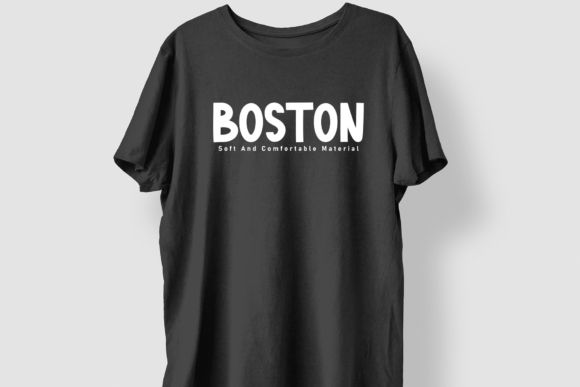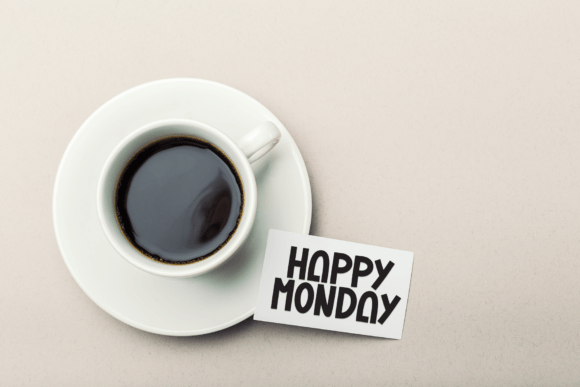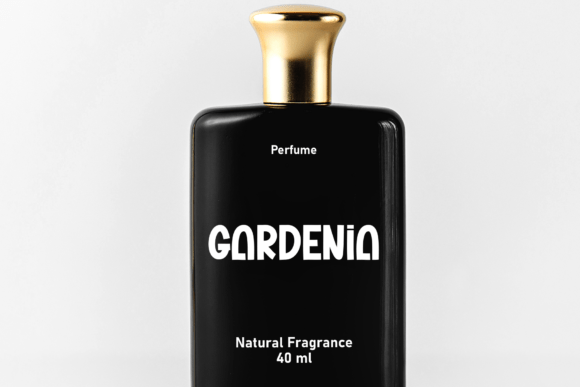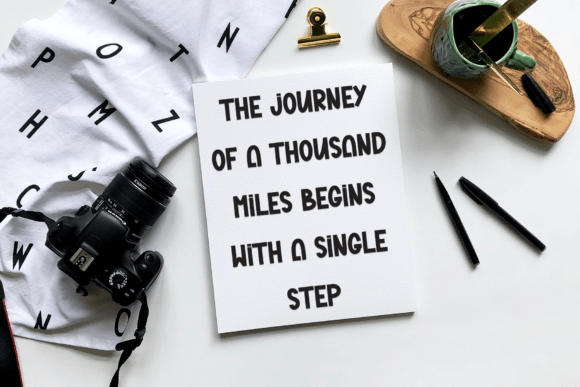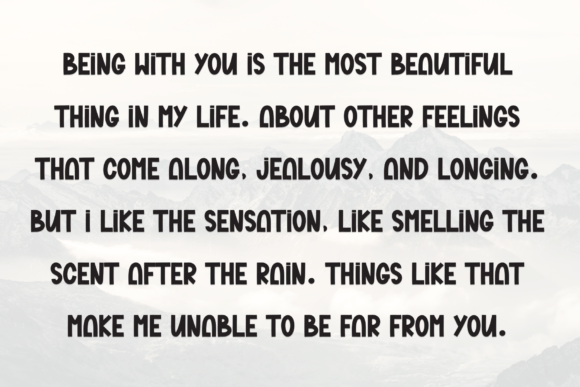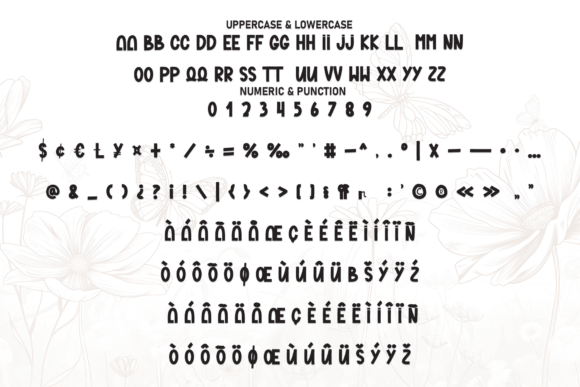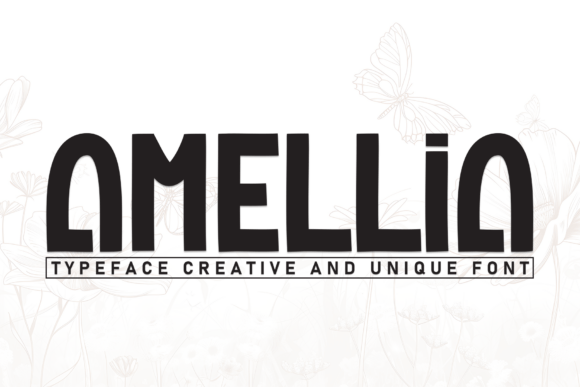
Discover the Charm of Amellia Font: The Perfect Blend of Clarity and Relaxed Elegance
In the world of typography, fonts play a crucial role in conveying the tone and personality of a brand or design. For designers and crafters looking for a font that strikes the perfect balance between modern sophistication and laid-back charm, Amellia Font is an excellent choice. This neat and casual display font is designed to bring clarity and approachability to your projects, making it ideal for a wide range of applications.
The Characteristics of Amellia Font
Amellia Font boasts clean lines and friendly letterforms that make it perfect for headlines, posters, packaging, and branding. Its balanced structure and playful energy bring a unique personality to any project without overwhelming the message. The font’s modern yet laid-back vibe makes it an excellent choice for designers who want to create a lasting impression without appearing too formal or intimidating.
What Makes Amellia Font Stand Out?
- Clarity and Readability: Amellia Font is designed to be clear and readable, making it perfect for headlines and titles that need to grab attention without sacrificing legibility.
- Relaxed and Approachable: The font’s casual and laid-back vibe makes it ideal for designs that aim to feel friendly and approachable.
- Balanced Structure: Amellia Font’s balanced structure ensures that it looks great in a variety of contexts, from digital displays to print materials.
- Playful Energy: The font’s playful energy brings a unique personality to any project, making it perfect for designs that want to stand out from the crowd.
Amellia Font is a versatile font that can be used in a wide range of design applications, including:
- Headlines and Titles: Use Amellia Font to create eye-catching headlines and titles that grab attention and convey your message.
- Posters and Flyers: The font’s bold and playful energy makes it perfect for posters and flyers that need to stand out.
- Packaging and Branding: Amellia Font is an excellent choice for packaging and branding projects that require a modern yet laid-back vibe.
- Digital Displays: The font’s clarity and readability make it perfect for digital displays, including social media graphics and website headers.
Why Choose Amellia Font?
With so many fonts to choose from, why should you choose Amellia Font for your next project? Here are just a few reasons:
- Unique Personality: Amellia Font brings a unique personality to any project, making it perfect for designers who want to create a lasting impression.
- Versatility: The font’s versatility makes it suitable for a wide range of design applications.
- Readability: Amellia Font’s clarity and readability make it perfect for designs that require a clear and concise message.
In conclusion, Amellia Font is an excellent choice for designers and crafters looking for a font that blends clarity with a relaxed, approachable vibe. Its clean lines, friendly letterforms, and balanced structure make it perfect for a wide range of design applications. Whether you’re working on a headline, poster, packaging, or branding project, Amellia Font is sure to bring a unique personality and style to your design.